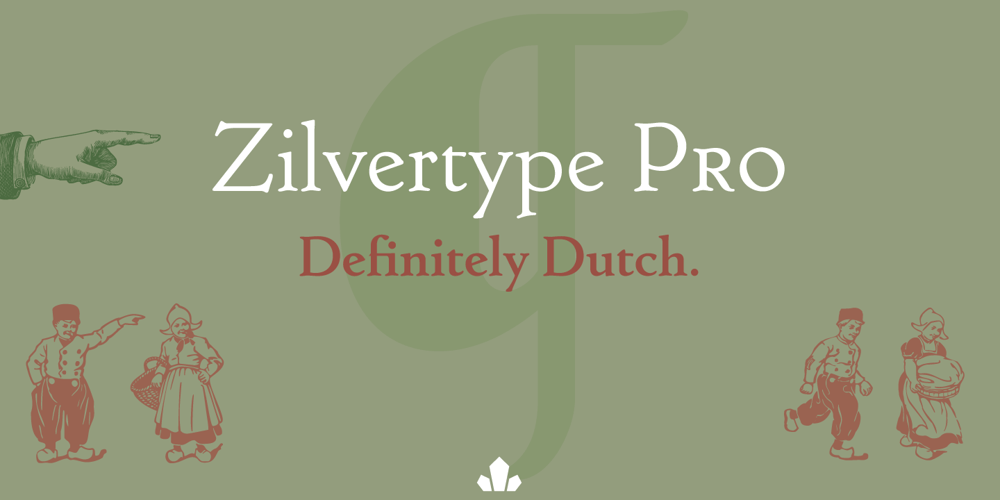
Zilvertype Pro
Zilvertype Pro Font Family was designed by published by Canada Type. Zilvertype Pro contains 4 styles and family package options. Right on the heels of the tremendous popularity wave that made Hollandse Mediaeval the most used Dutch typeface during the Great War years, Sjoerd H. de Roos was asked to design a 15 point type for De Zilverdistel, Jean François van Royen’s publishing company. So between 1914 and 1916, de Roos and van Royen collaborated on the typeface eventually known as Zilvertype, and which both parties viewed as an improved version of Hollandse Mediaeveal. Like Hollandse Mediaeval, Zilvertype was based on the Jenson model, but it is simpler, with more traditional metrics, lighter and more classic in color. This Pro digital version of Zilvertype comes expanded in all directions. It contains a roman, a bold and an italic. Each font contains over 685 glyphs, including small caps, eight different sets of figures, plenty of ligatures, some Dutch ornaments, and extended language support covering most Latin languages. Zilvertype Initials is also there to round out this distinctively Dutch text family and make it ideal for immersive text design.